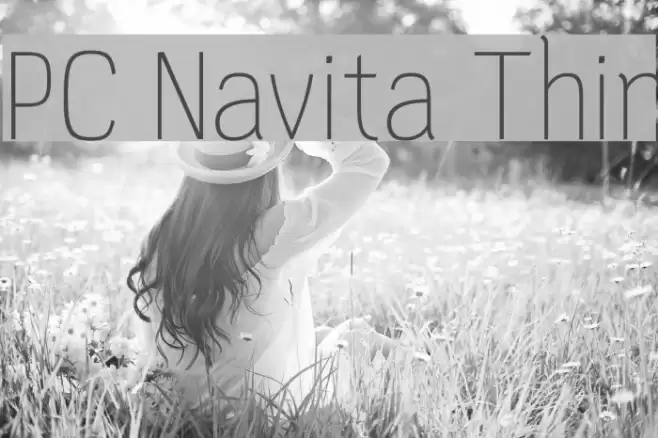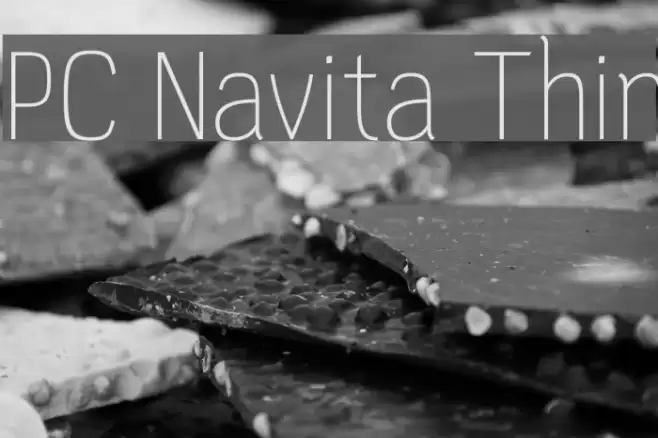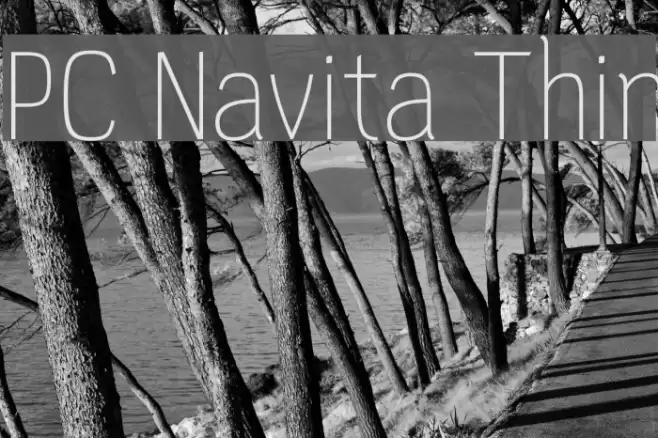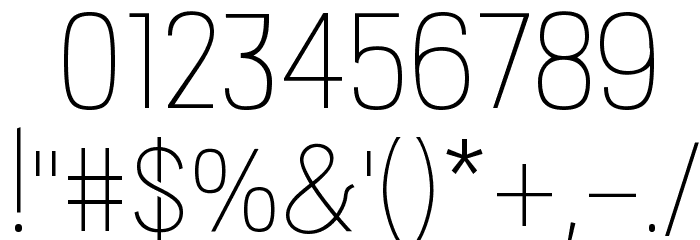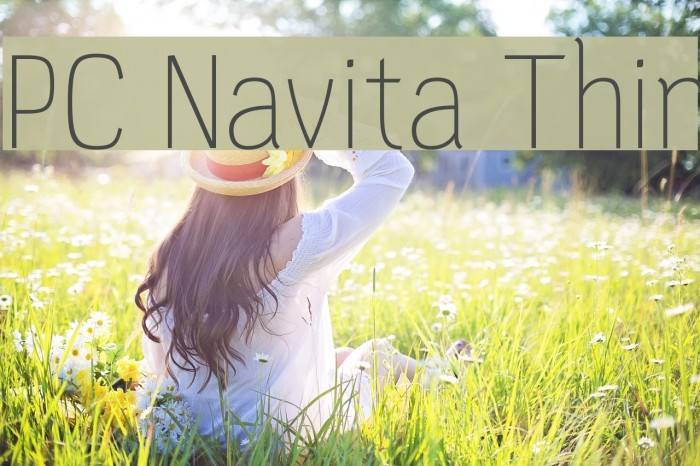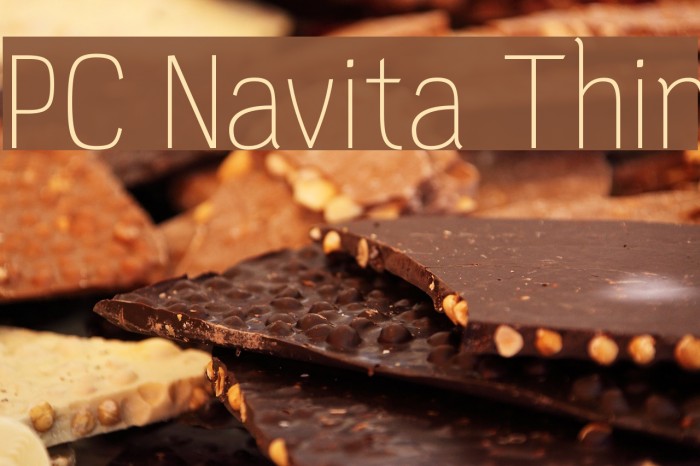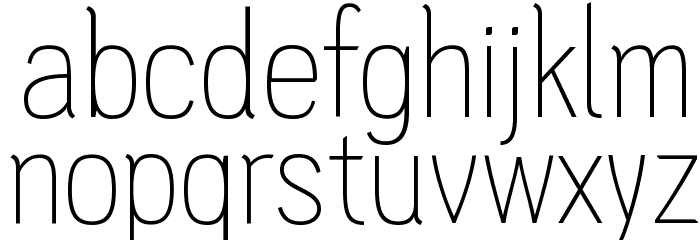
PC Navita Thin Font
PC Navita Thin Description
This font features a clean and modern sans-serif design with a thin and elegant appearance. The characters are uniformly structured, offering a sleek and contemporary look. The uppercase and lowercase letters maintain a consistent height and width, providing a harmonious visual flow. The numerals are clear and legible, making them suitable for various applications. Special characters are well-defined, enhancing the font's versatility. Its minimalistic style makes it ideal for projects that require a sophisticated and understated aesthetic.
A thin, modern sans-serif font with a clean and elegant design from Uncategorized fonts.
- Proposed Projects: Ideal for branding, editorial design, web design, and minimalist graphic projects.